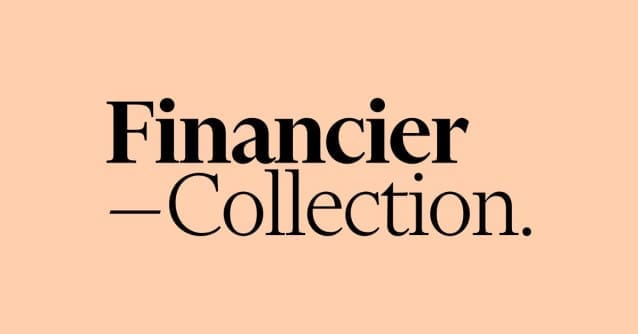
Financier Collection Font Family
Financier Collection Font Family is an elegant, authoritative serif with an undeniable British heritage. Drawn for the redesign of the Financial Times (FT) in 2014, it comprises two complementary families: Financier Display and Financier Text. Financier’s aesthetic comes from Eric Gill’s classic letterforms. Financier Text draws pragmatic detailing from Solus and Joanna; Financier Display takes Perpetua’s stately charm. Their respective italics reconcile mechanical sloped Romans and traditional calligraphic forms with a narrow, slight incline. They have a frugal, staccato grace, creating a formal typographic atmosphere that never feels dry. Financier’s versatility handles news and features in the arts, science and sport — as well as finance. Furthermore, Financier works across all media, from wide-printed broadsheets to narrow mobile screens.